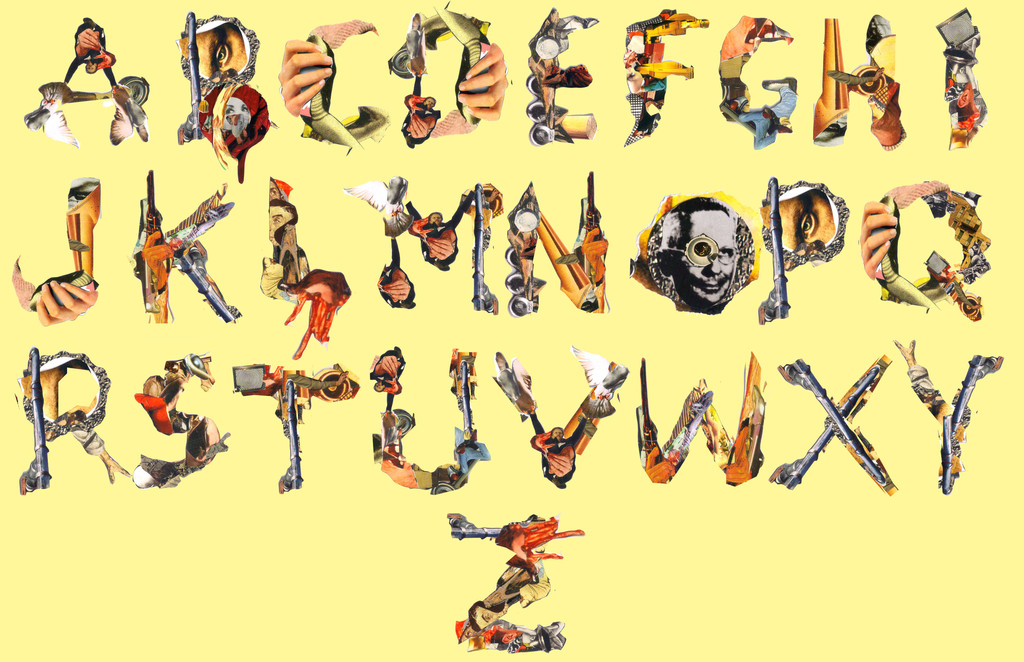
Font set I made for my Typography final. All letters were handmade from random paper scraps, then scanned into photoshop.To keep with the cut n paste theme I named it "Ransom Note".No one would ever use this font but I think it looks surprisingly consistent when you consider the medium used.